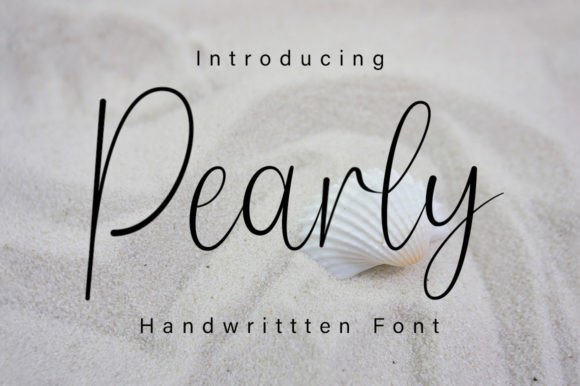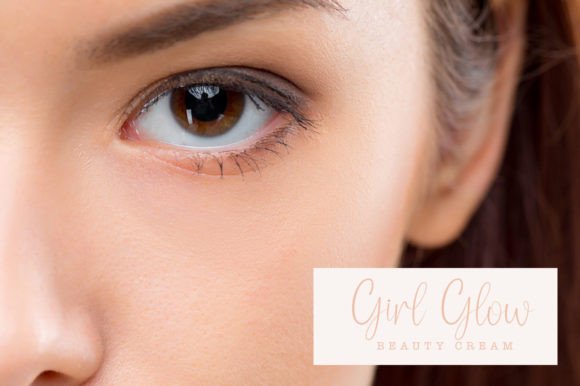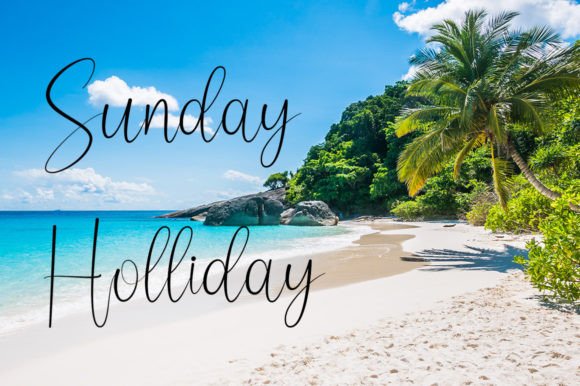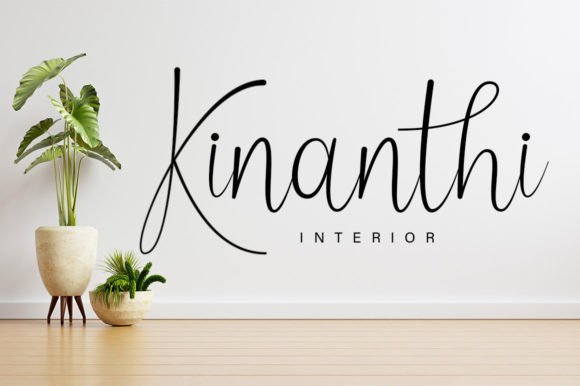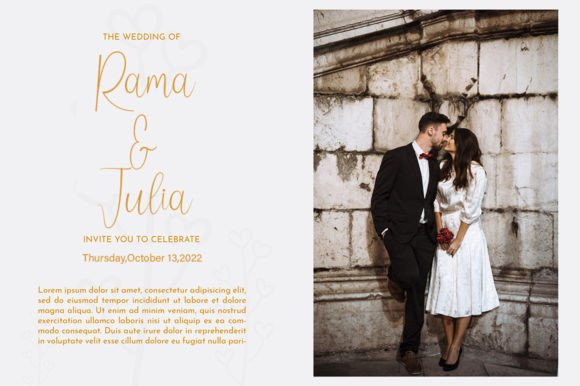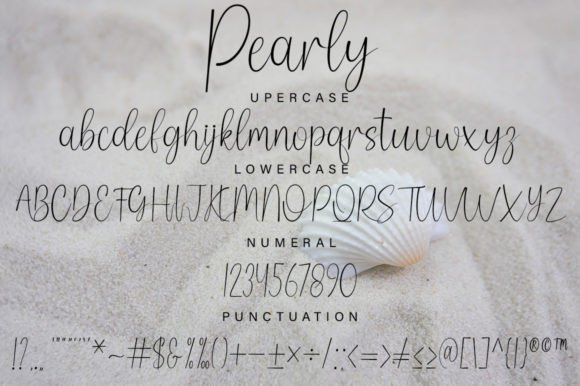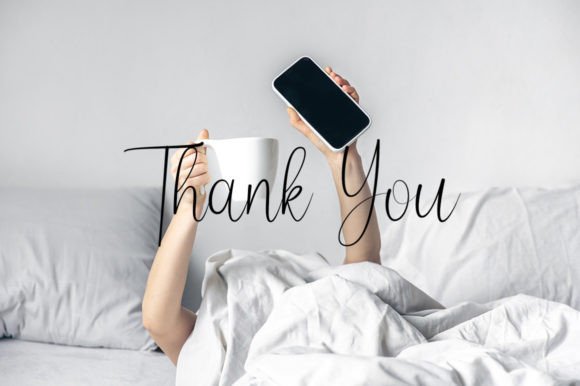
Pearly Font
About Pearly Font
Pearly is a graceful, modern, and delicate script font. With its beautiful rhythm, this font will help you create gorgeous and classy compositions. Use it for branding projects, invitations, web graphics, cards, and many more!